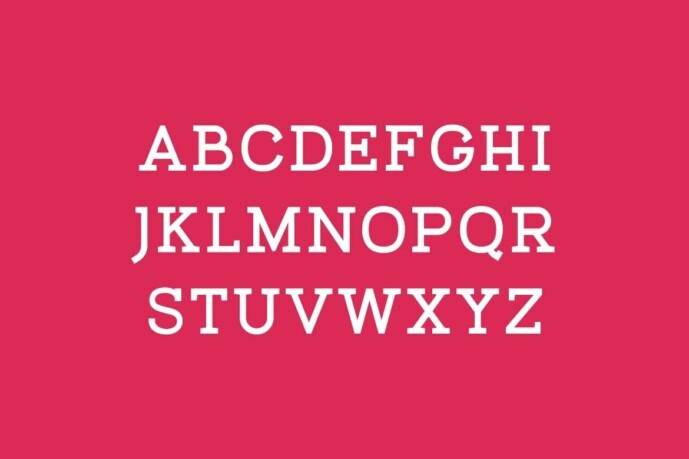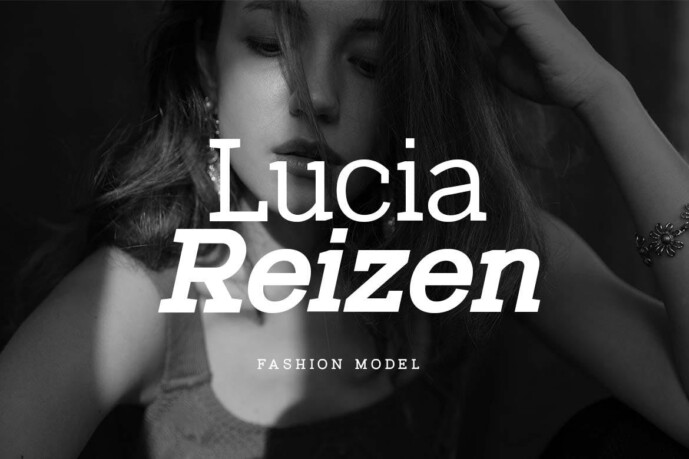
Defray Slab Font Family
Defray Slab Font Family that offers a feeling of beauty, class, elegance and modernity. This font is perfect for a wide variety of projects, such as signature, stationery, logo, wedding, typographic quotes, magazine or book covers, website headers, clothing, branding, packaging design, etc. Additionally, fashion-related branding or editorial design exhibits both masculine and feminine qualities